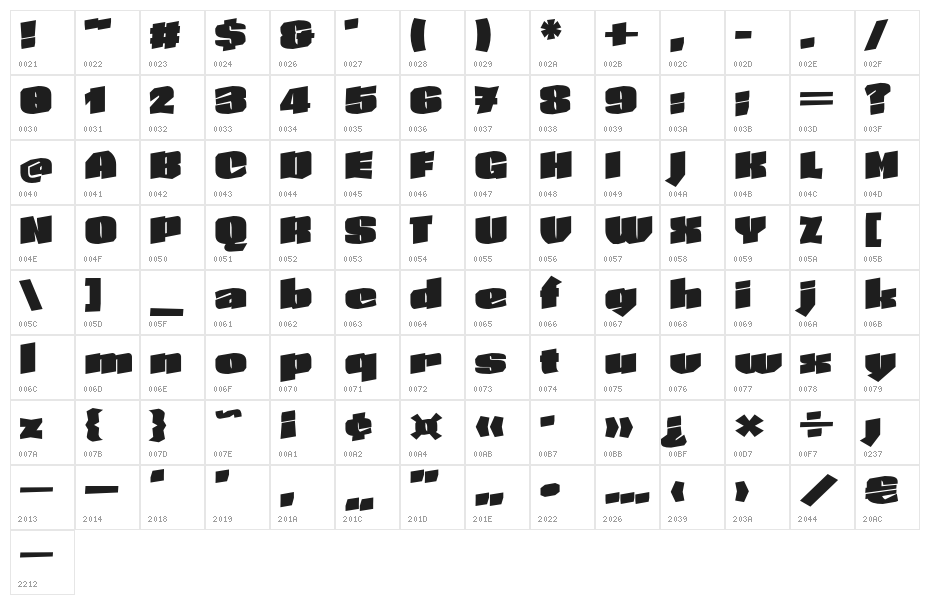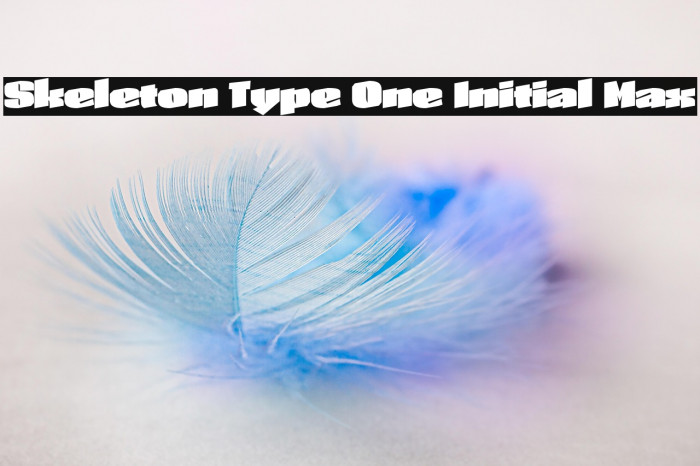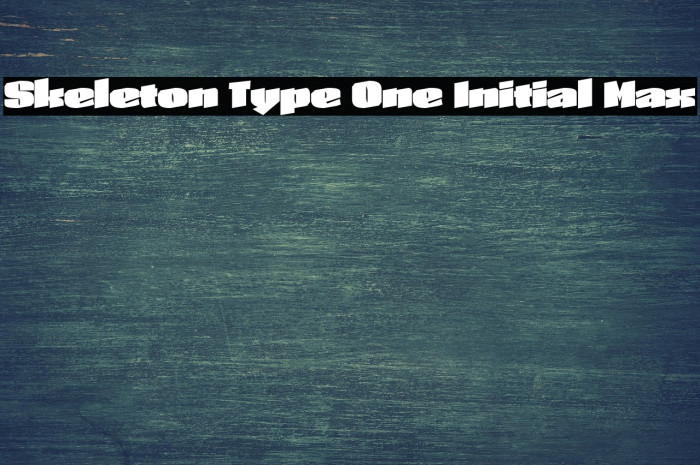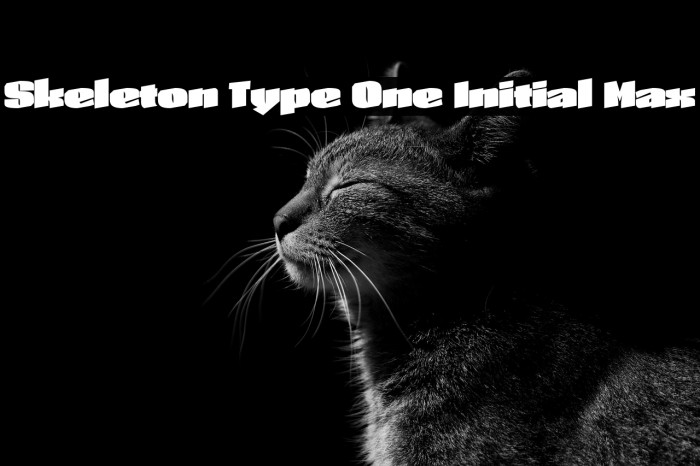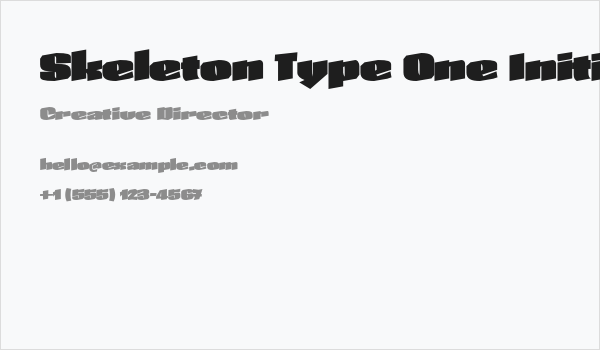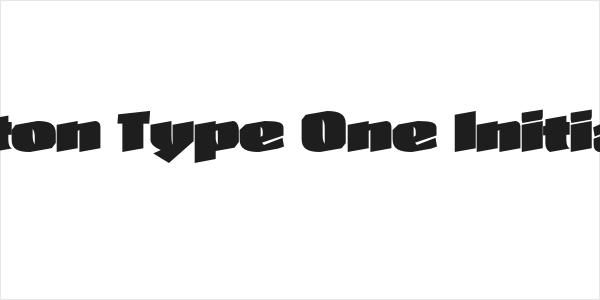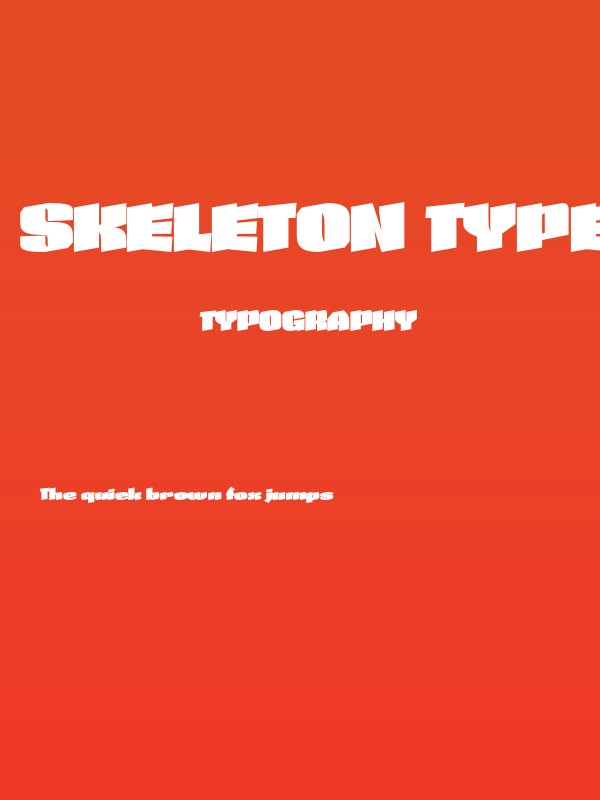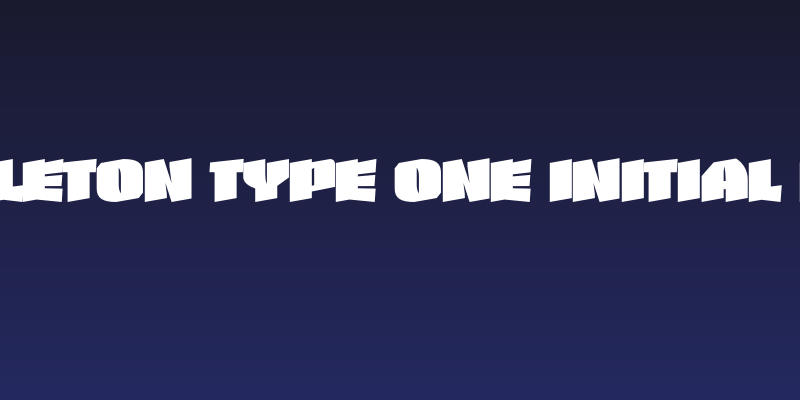
Skeleton Type One Initial Max Font
Skeleton Type One Initial Max Description
This font features a bold and dynamic style with a distinct, angular design. The characters are heavily stylized, with sharp edges and a blocky appearance that gives them a powerful presence. The uppercase and lowercase letters maintain a consistent weight, creating a cohesive look across the alphabet. The numbers and special characters follow the same bold and angular theme, ensuring uniformity throughout. This font's unique structure makes it stand out, ideal for projects that require a strong visual impact.